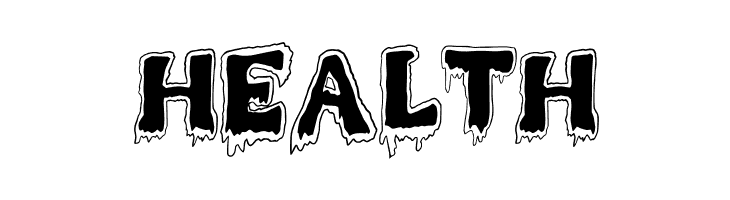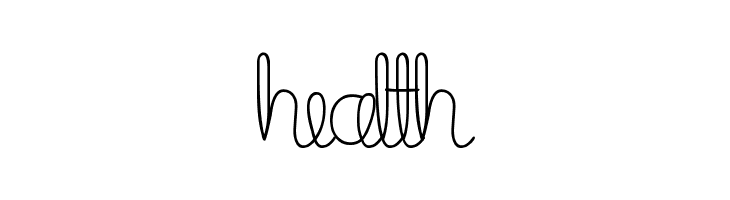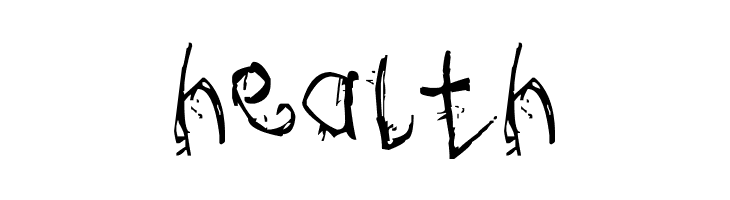
A distressed, jagged font with a raw, edgy appearance.
A bold, geometric font ideal for impactful headlines and titles.
A bold, dripping font perfect for spooky or playful themes.
A playful, handwritten font with a casual and friendly appearance.
A bold, rounded font with a playful and friendly appearance.
A playful, handwritten font with smooth, flowing lines and a whimsical style.
A delicate, handwritten font with a light, airy feel and elegant slant.
A playful, hand-drawn font with bold, rounded characters.
A playful, handwritten font with whimsical, informal characteristics.
A playful, handwritten font with thin, flowing strokes and a casual style.